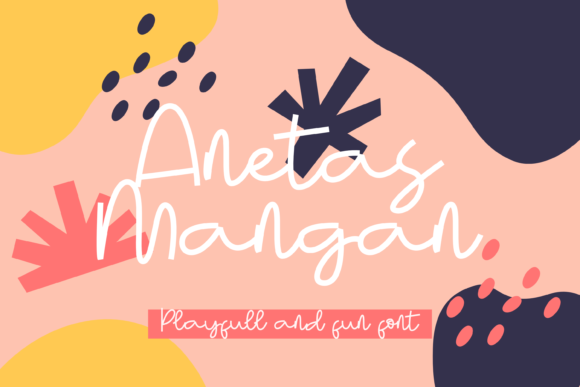
Welcome to the world of Anetas Mangan, the font that captures the essence of individuality and charm. This extraordinary script font, born from the creative minds of Ongtype co., offers a breath of fresh air to your design projects.
Anetas Mangan is not just a font; it's an experience. Its playful and informal nature will add a touch of whimsy to your designs, making them feel both personal and inviting. Let your creativity soar as you explore the endless possibilities that Anetas Mangan has to offer. Experiment with various combinations of letters, words, and phrases, and discover the magic that unfolds before your eyes.
With its cursive and natural-looking style, Anetas Mangan exudes a unique handwritten charm that will captivate your audience. Imagine your social media posts, invitations, and marketing materials coming to life with the authentic and friendly aura that Anetas Mangan brings. Your designs will no longer be just words on a page; they'll be expressions of your personality and creativity.
Anetas Mangan is your key to unlocking a world of design possibilities. Its versatility knows no bounds, making it the perfect choice for a wide range of projects, including logos, branding, packaging, posters, and social media graphics. With Anetas Mangan by your side, you'll have the power to transform your ideas into captivating visuals that resonate with your audience.